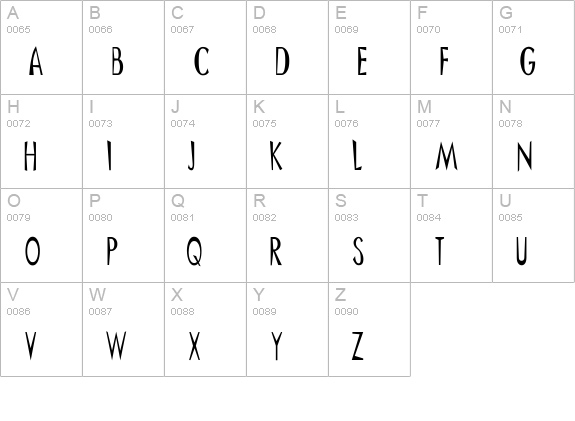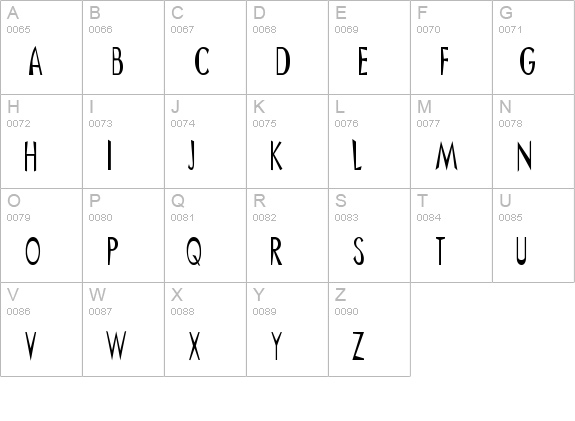
ChineMen font is a stunning display typeface that exudes elegance and sophistication. With its unique blend of classic and modern elements, this font is perfect for adding a touch of style to your designs. The sleek lines and intricate details of ChineMen font make it perfect for a wide range of projects, from branding to editorial design. Best of all, ChineMen font is available for free download at FontsMarket.com. This means you can easily access this beautiful typeface to elevate your creative projects without any cost. Don't miss out on the opportunity to add ChineMen font to your font library today and bring a touch of sophistication to your designs.